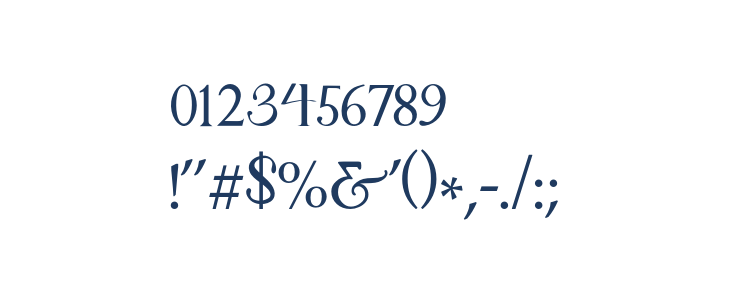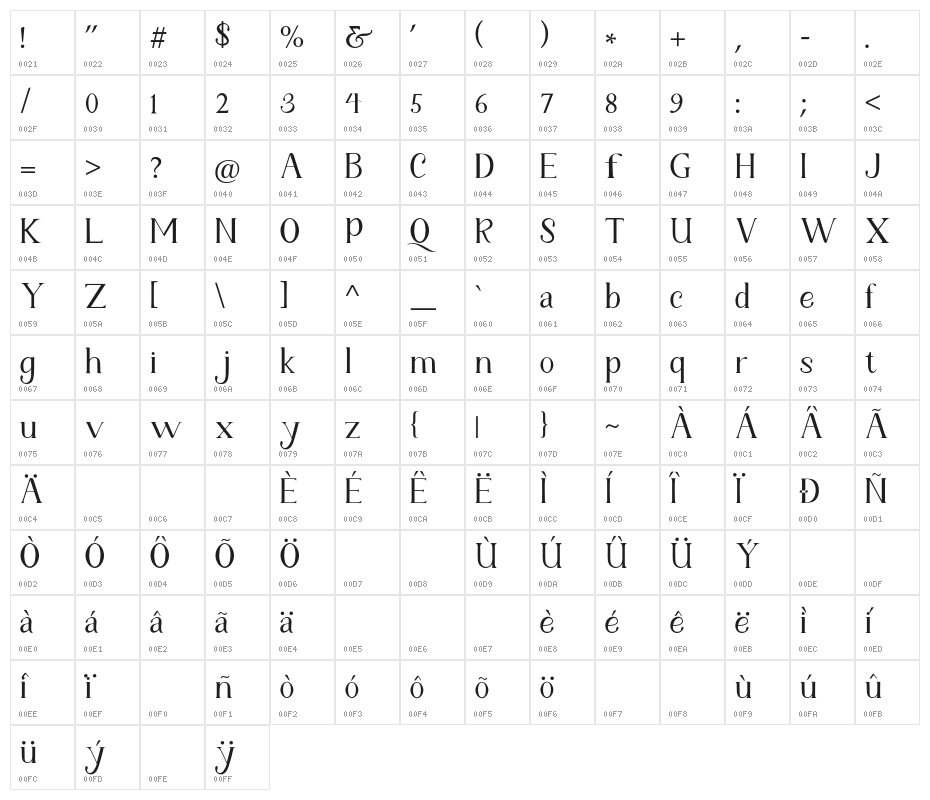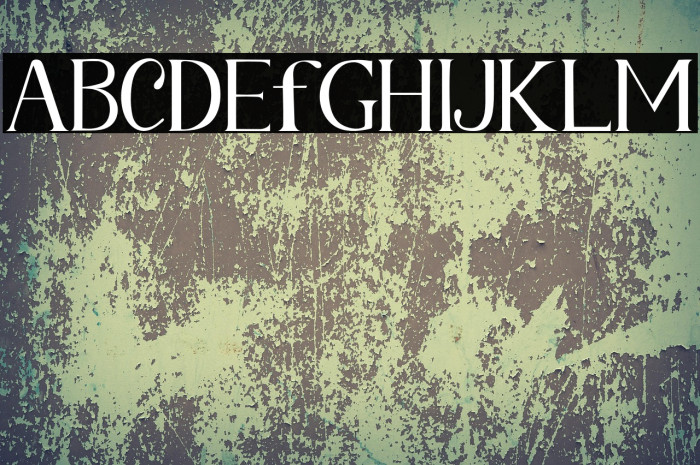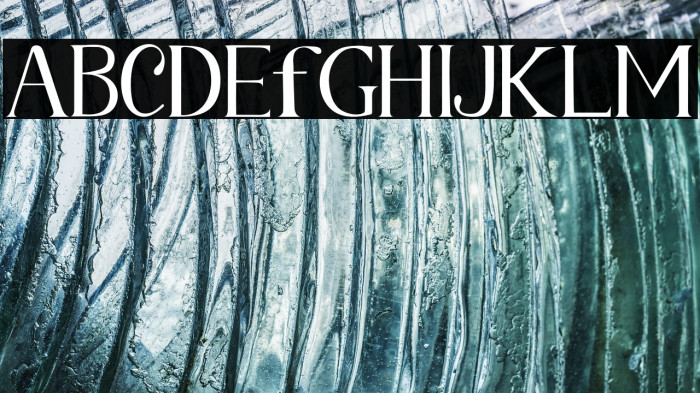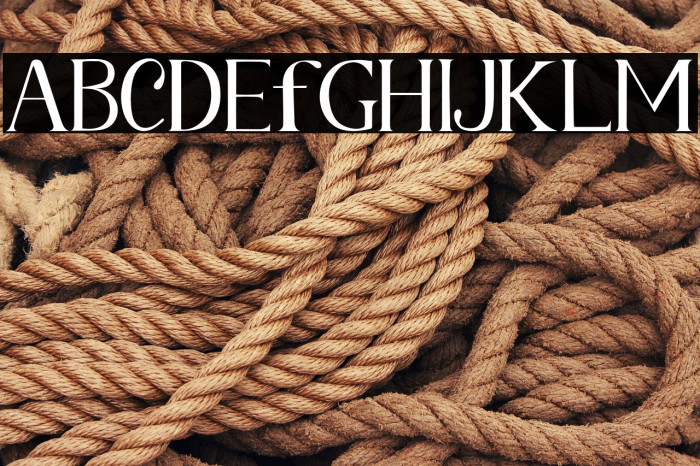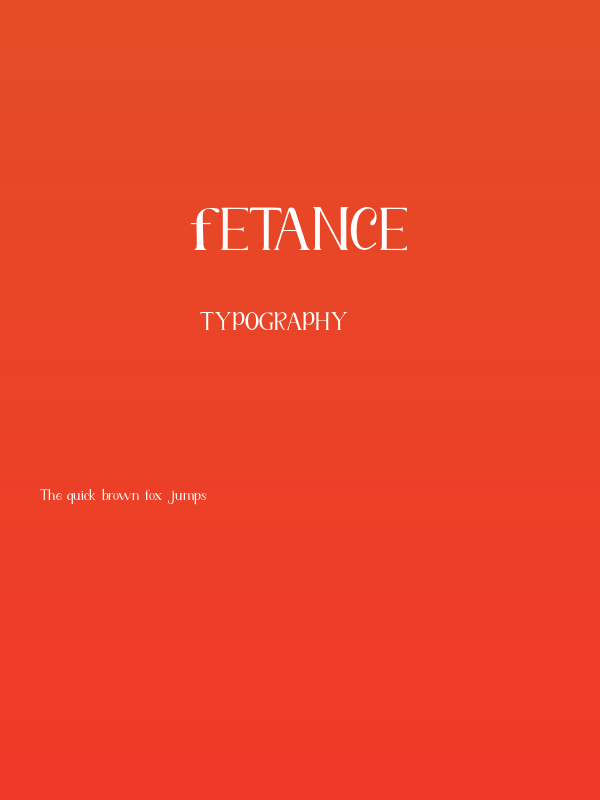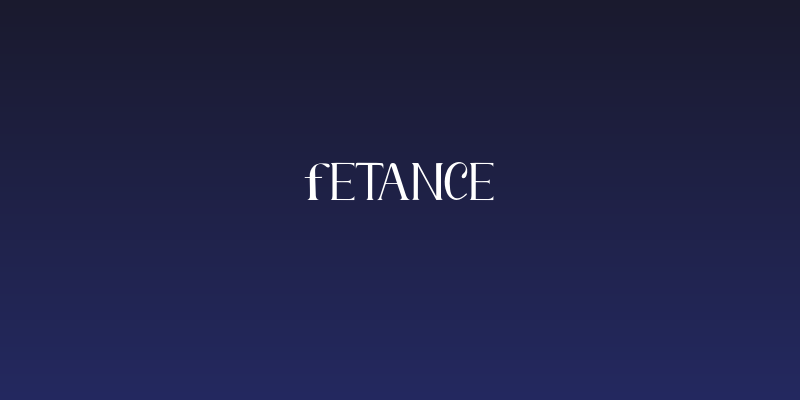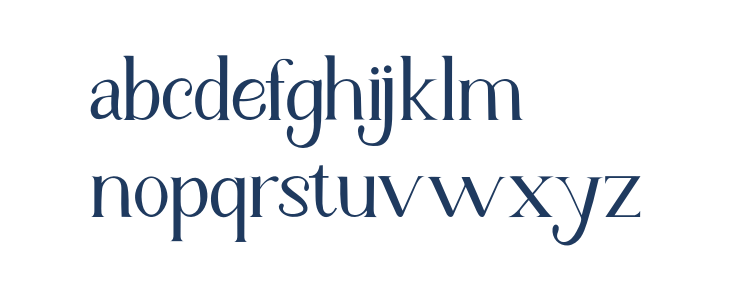
Fetance Font
Fetance Description
This font features a distinctive and elegant design with a modern twist. The uppercase letters are characterized by their tall, slender forms with subtle curves, giving them a sophisticated appearance. The lowercase letters maintain a consistent style, with unique flourishes on certain characters like 'g' and 'y' that add a touch of flair. The numerals are clean and easily readable, while the special characters are designed to complement the overall aesthetic. The font's high contrast between thick and thin strokes enhances its visual appeal, making it suitable for a variety of design projects.